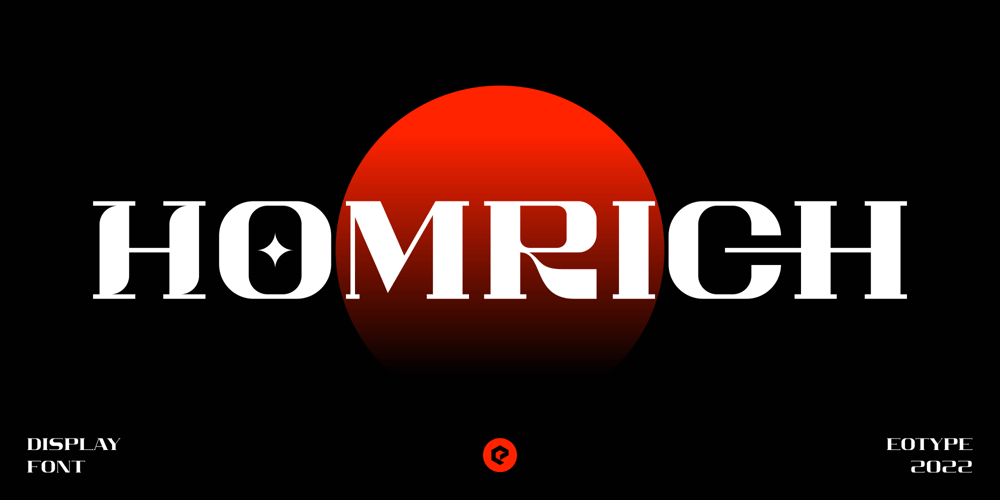
Homrich Font Family was designed by Fajar Ramadan and published by Eotype. Homrich contains 1 styles and family package options. Homrich is font designed by Fajar Ramadan, with design combination between urban street wear themes. Homrich comes with stylistic, alternates, ligatures and supports multilingual languages. Create unique & beautiful logotype, use it as an elegant solution for your next magazine layout, or choose Homrich for any graphics that require a sleek look with a elegant.